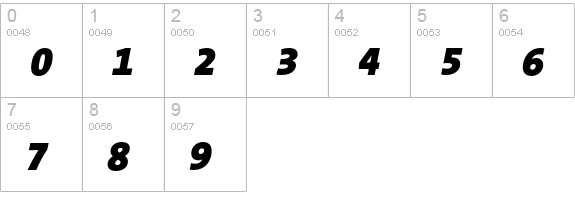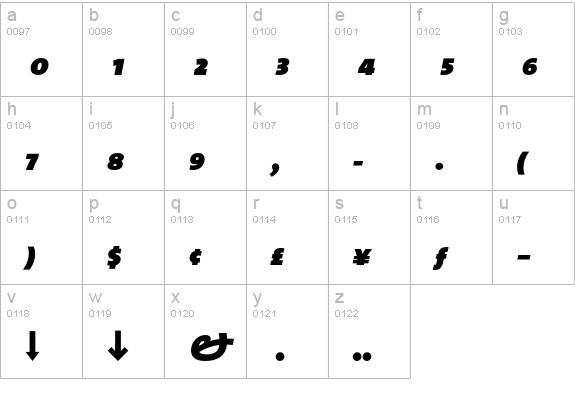
TheMix Black Expert Italic Font Details
TheMix Black Expert Italic is a maximum-weight, dramatic, italic variant in the TheMix typeface family \xE2\x80\x94 well suited to maximum-impact headlines, posters, and packaging.
TheMix Black Expert Italic font is a stunning display typeface that exudes elegance and sophistication. Its sleek and bold letterforms are expertly crafted to make a statement and captivate the reader's attention. This font is perfect for creating eye-catching headlines, logos, and branding materials that demand attention. TheMix Black Expert Italic font is designed with precision, ensuring that each letter is meticulously balanced to create a harmonious and visually pleasing composition. The italicized style adds a touch of flair and drama, making it ideal for adding a touch of sophistication to any design project. What sets TheMix Black Expert Italic font apart is not only its impeccable design, but also the fact that it is freely available to download at FontsMarket.com. This means that designers and creatives alike can easily access and utilize this stunning typeface in their projects without any cost. Whether you are a professional designer or a hobbyist, TheMix Black Expert Italic font provides a high-quality and versatile solution for all your design needs. With its bold and commanding presence, TheMix Black Expert Italic font is sure to make a lasting impression. Its strong and distinctive letterforms will elevate any design, making it perfect for posters, book covers, packaging, and more. The versatility of this font allows it to seamlessly adapt to various design styles and genres, making it a valuable asset to any creative project. So, if you're looking for a powerful and eye-catching font that will make your designs stand out, look no further than TheMix Black Expert Italic font. Download it for free at FontsMarket.com and unleash your creativity with this remarkable typeface.